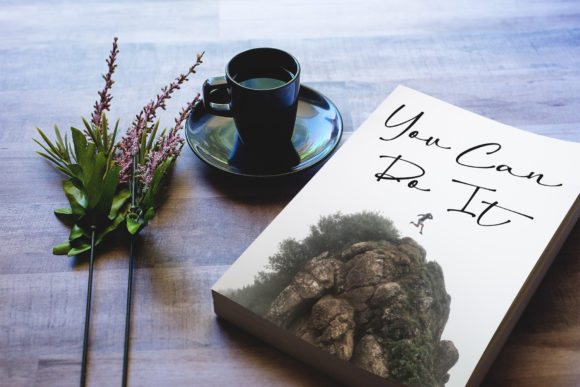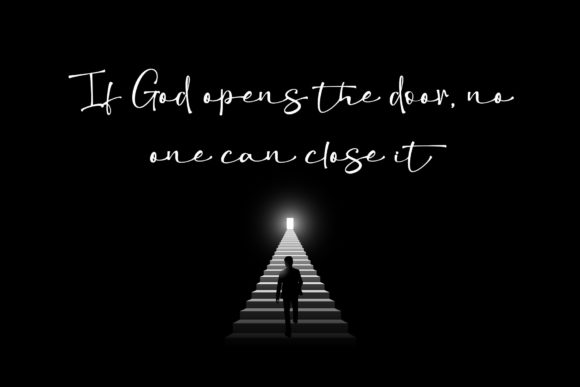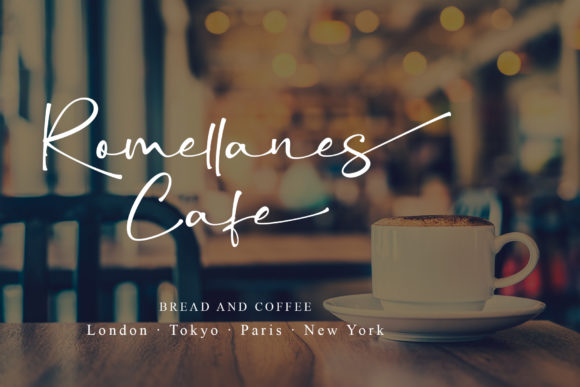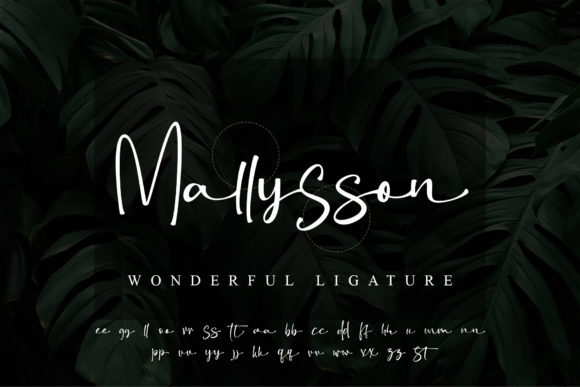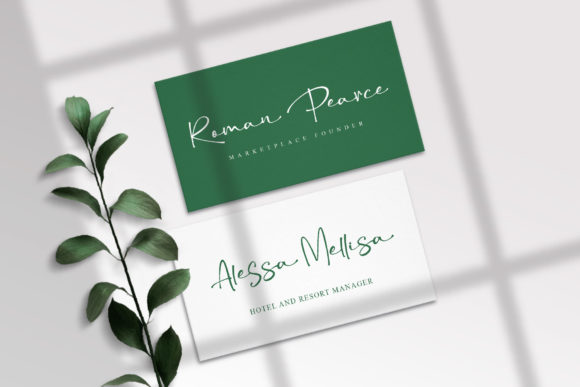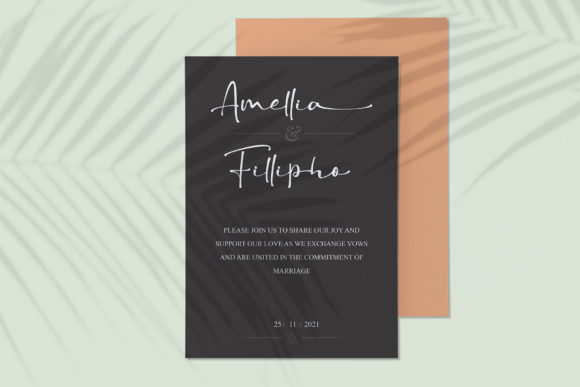
Billyjo Font: Elevate Your Designs with a Touch of Vintage Elegance
In the world of typography, fonts play a crucial role in conveying the tone and aesthetic of a design. For designers and crafters looking to add a touch of vintage elegance to their work, the Billyjo font is an excellent choice. This beautiful, well-balanced, and vintage-styled script font is perfect for fashion branding, editorial designs, and any project that requires a dash of sophistication.
The Characteristics of Billyjo Font
Billyjo is defined by its smooth curves, which give it a fluid and elegant appearance. The font’s vintage style is reminiscent of classic script typography, yet its clean lines and balanced structure make it highly legible and versatile. Whether you’re working on a fashion brand’s logo, an editorial spread, or a craft project, Billyjo’s unique charm is sure to enhance your design.
One of the standout features of the Billyjo font is its PUA (Private Use Area) encoding. This means that you can access all of the font’s glyphs and swashes with ease, giving you a wide range of creative options. PUA encoding allows designers to use the font’s extended features without the need for complex software or technical expertise. With Billyjo, you can effortlessly add flourishes and decorative elements to your designs, taking them to the next level.
Ideal for Fashion Branding and Editorial Designs
Fashion branding and editorial designs require fonts that are not only stylish but also highly legible. Billyjo ticks both boxes, making it an excellent choice for designers working in these fields. The font’s vintage style and elegant curves evoke a sense of luxury and sophistication, perfect for high-end fashion brands or editorial spreads that require a touch of glamour.
Tips for Using Billyjo Font in Your Designs
- Pair it with contrasting fonts: Combine Billyjo with a clean, sans-serif font to create visual interest and highlight the font’s unique features.
- Experiment with swashes: Take advantage of Billyjo’s PUA encoding to add decorative swashes and flourishes to your designs.
- Use it for headlines and titles: Billyjo’s elegant curves and vintage style make it perfect for headlines and titles, adding a touch of sophistication to your designs.
- Don’t be afraid to get creative: With its wide range of glyphs and swashes, Billyjo offers endless creative possibilities. Experiment with different combinations to find the perfect look for your design.
In conclusion, the Billyjo font is a beautiful, well-balanced, and vintage-styled script font that is perfect for fashion branding, editorial designs, and any project that requires a touch of elegance. Its smooth curves, PUA encoding, and wide range of glyphs and swashes make it a versatile and creative choice for designers and crafters. Whether you’re looking to add a touch of sophistication to your designs or simply want to try something new, Billyjo is an excellent choice.